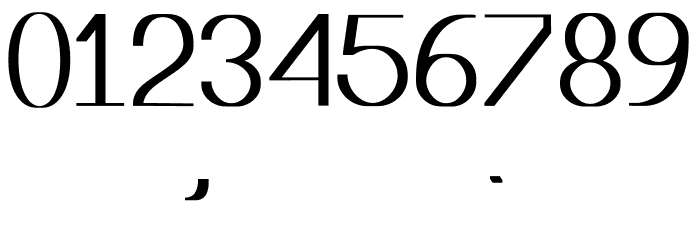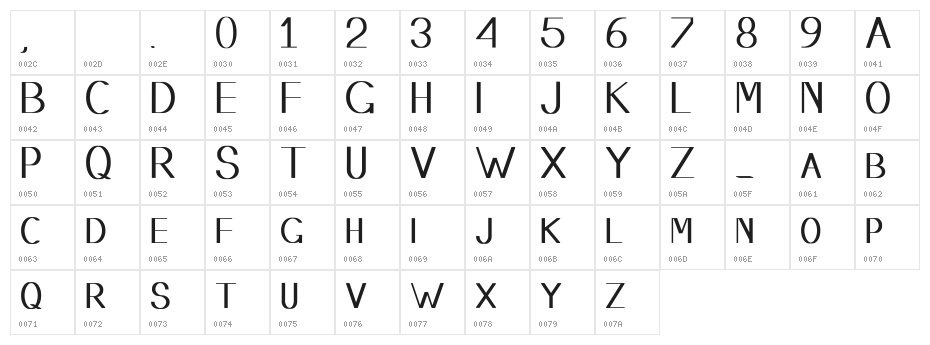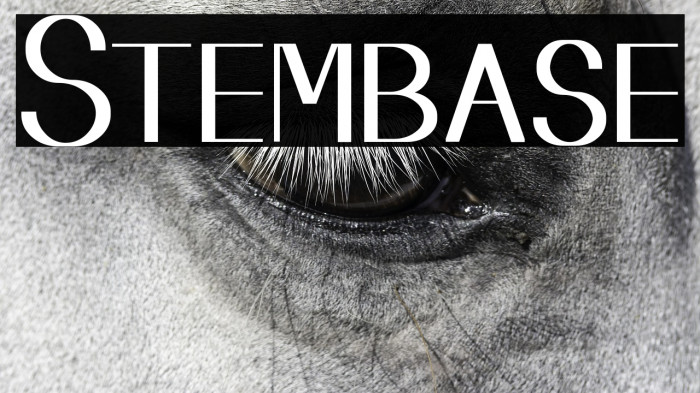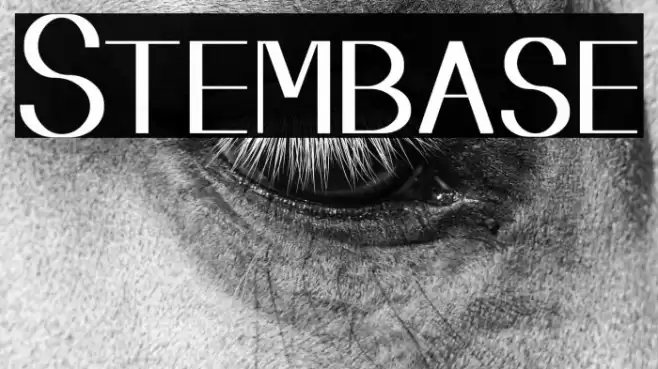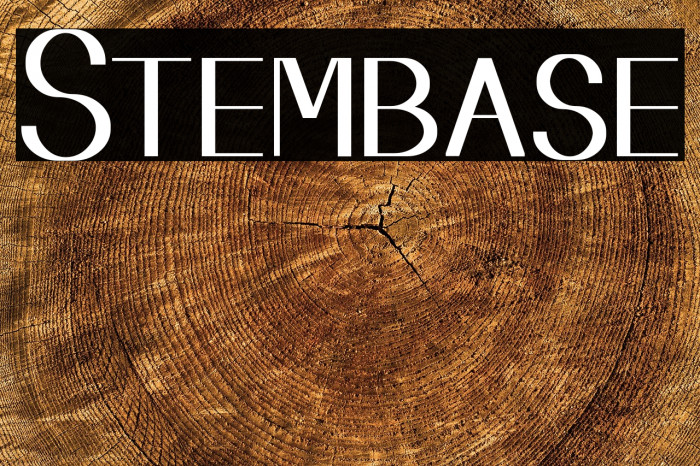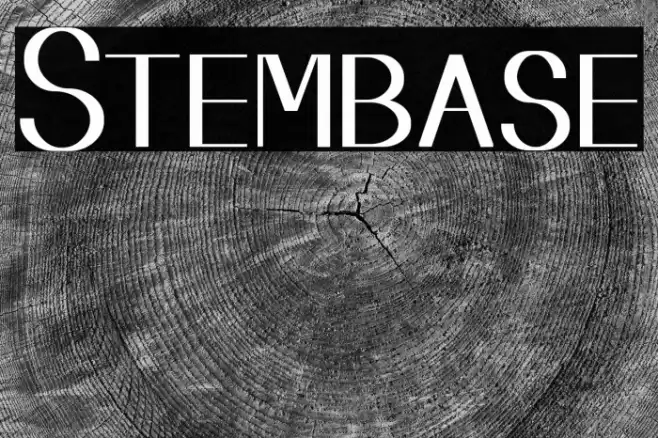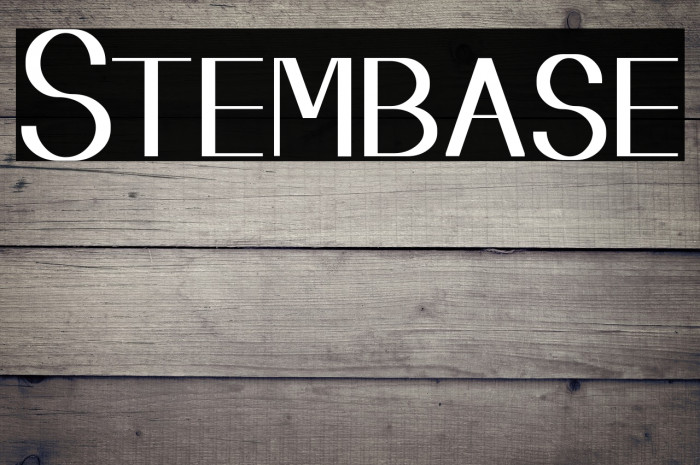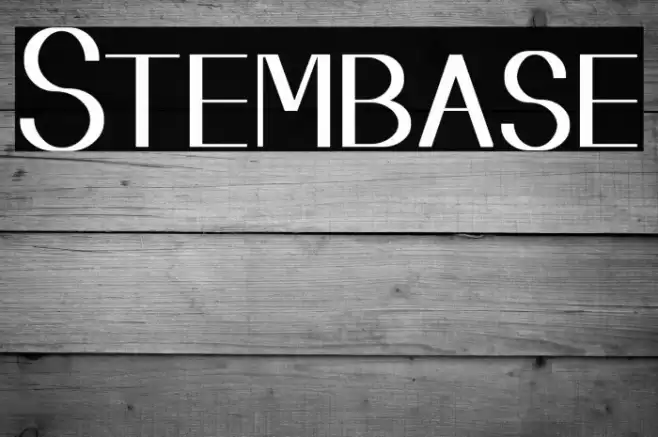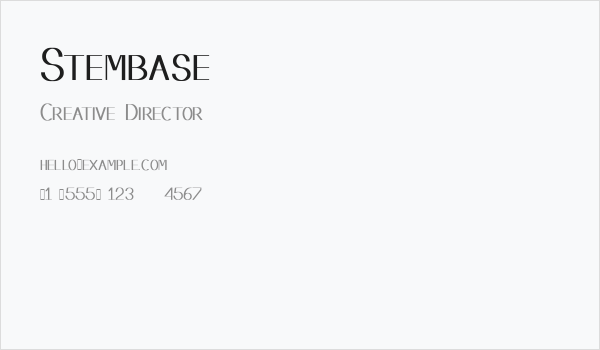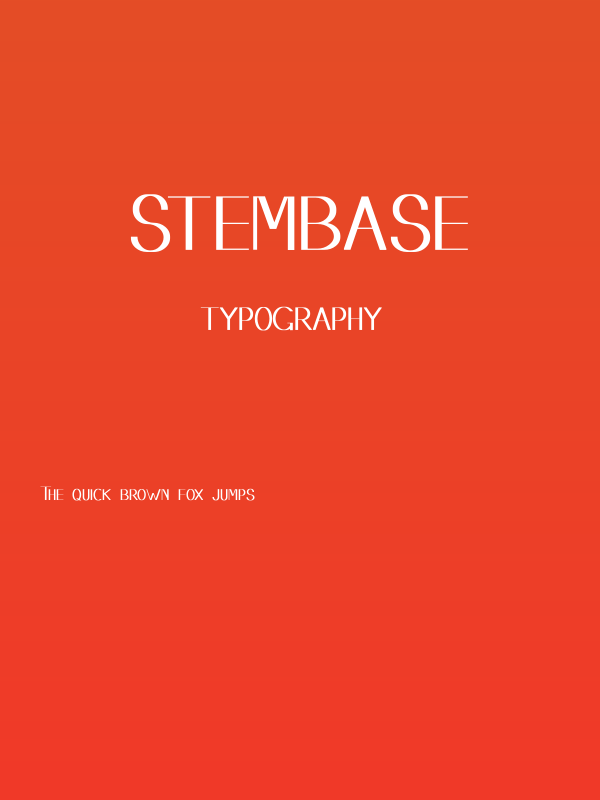
Stembase Font
Stembase Description
This font features a modern and sleek design with clean lines and a geometric structure. The uppercase letters are bold and assertive, with a slight contrast in stroke thickness that adds a touch of elegance. The lowercase letters maintain a consistent style, complementing the uppercase with a slightly more condensed form. The numerals are distinct and easy to read, making them suitable for a variety of applications. The special characters are designed to match the overall aesthetic, ensuring a cohesive look across all text elements. This font is versatile, suitable for both digital and print media, and can be used effectively in branding, advertising, and editorial design.